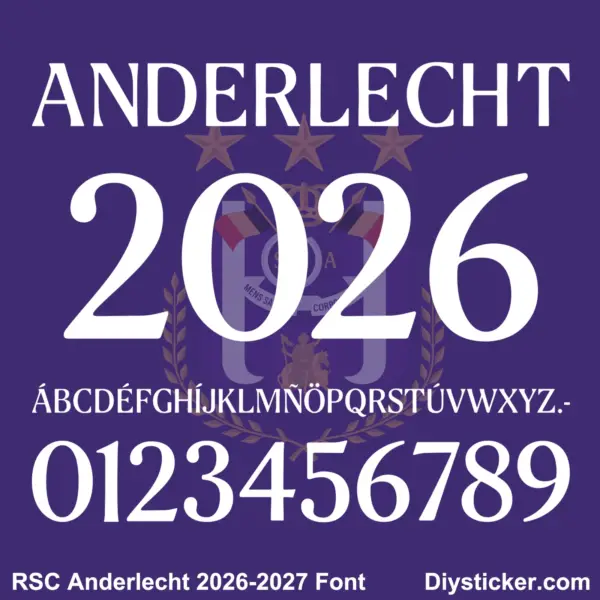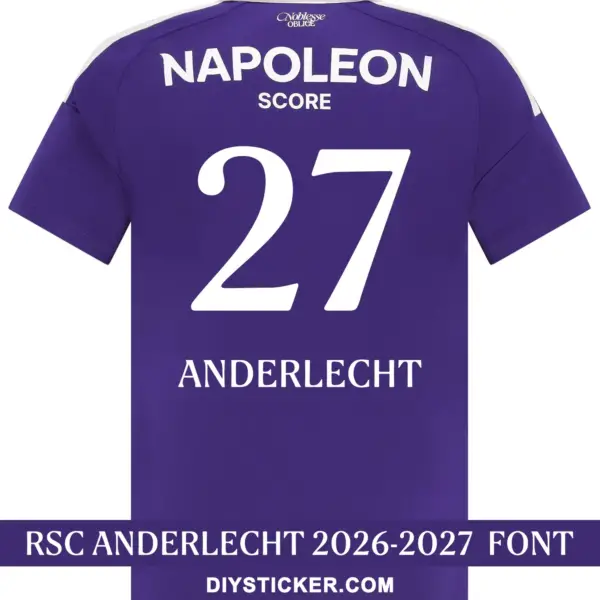
Elevate your custom sportswear production with this refined royal typography kit! Designed for garment decorators seeking an authentic RSC Anderlecht 2026-2027 font download, this digital bundle features the complete RSCA 2026-27 home kit font in crisp, solid white. Styled with classic serif letterforms, elegant terminal curves, and high-visibility numeric geometry, it serves as the ideal custom jersey printing font RSC Anderlecht choice for heat transfer, vinyl cutting, and dye sublimation projects.
• Complete uppercase alphabet, Anderlecht jersey numbers vector, and international accents (including Á, É, Í, Ñ, Ö, Ú).
Elevate Your Kit Customization with the RSC Anderlecht 2026-2027 Font
Upgrade your custom sports apparel catalog with the official match-day home kit typography for Royal Sporting Club Anderlecht! This digital asset pack delivers a complete RSC Anderlecht 2026-2027 font download tailored for Belgian Pro League and European match shirt production. Characterized by high-contrast serif accents, sweeping tail terminals on numbers like ‘2’ and ‘6’, and clean uppercase nameplate typography, this kit font creates a regal look against classic purple home shirt fabric.
Comprehensive Character Mapping
1. A-Z Uppercase Alphabet: Classic serif-accented uppercase letterforms crafted for elegant visibility across high-back player nameplates (ANDERLECHT).
2. 0-9 Custom Serif Numbers: Smooth, solid white numeric glyphs with distinct curved terminals and high contrast (supplied as Anderlecht jersey numbers vector).
3. Special Accents & Diacritics: Complete set of punctuation marks and international accents (Á, É, Í, Ñ, Ö, Ú, etc.) to accurately render custom player names using this custom jersey printing font RSC Anderlecht package.